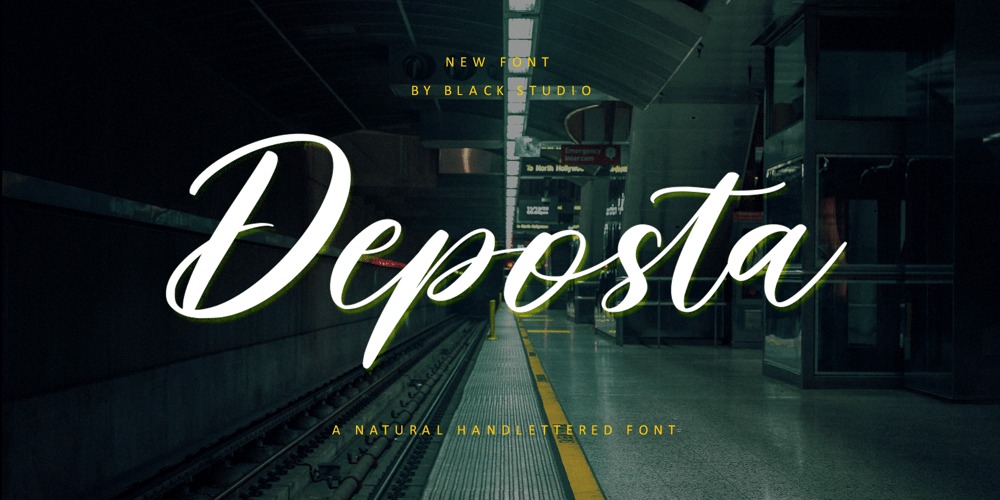
Deposta Font Family was designed by Reza Haitami and published by Black Studio. Deposta contains 1 styles and family package options. Deposta handwriting fonts are a charming collection of typefaces that encapsulate the authenticity and organic flow of handwritten script. Each font within the Deposta family is carefully crafted to evoke a sense of elegance, yet maintain a casual and natural appearance. With varying styles and weights, these fonts exhibit fluid strokes, graceful curves, and nuanced detailing, capturing the essence of handwritten text while offering versatility for diverse design projects. Whether used for invitations, branding, or creative endeavors, Deposta handwriting fonts bring a delightful touch of personal expression and sophistication to any typographic composition.